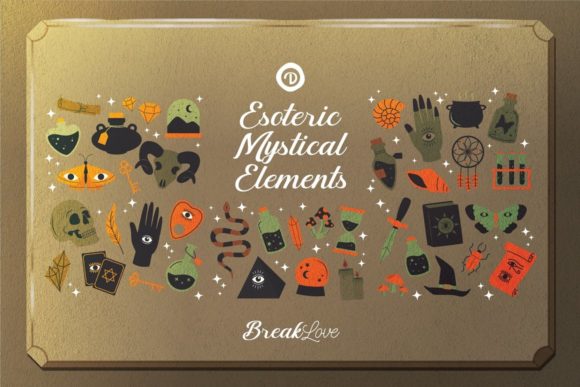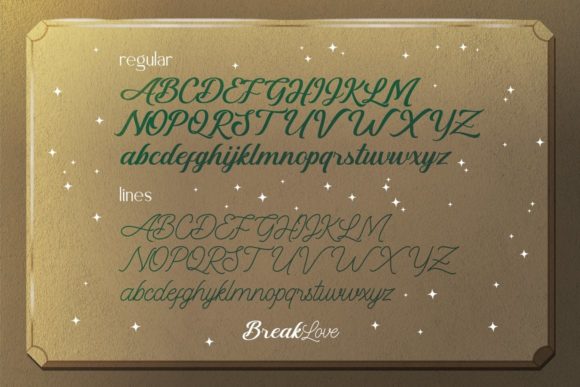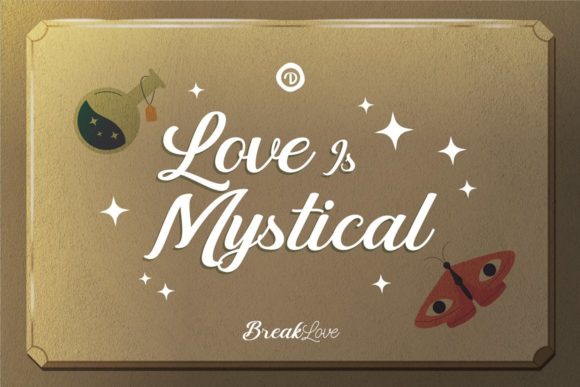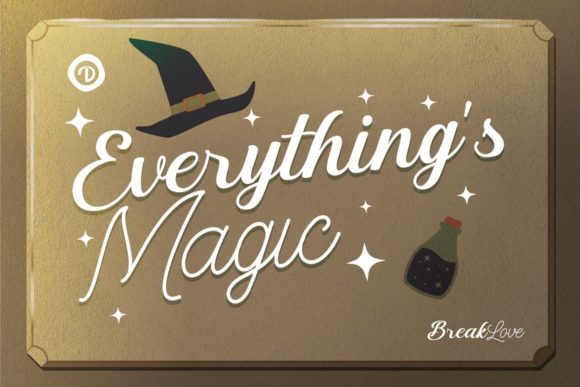
BreakLove Font
About BreakLove Font
BreakLove is a gorgeous and bold handwritten font, crafted to give your headlines and logotype projects a stylish touch. This font reads as strong, confident, and dynamic and can add tons of nostalgic character to your designs.